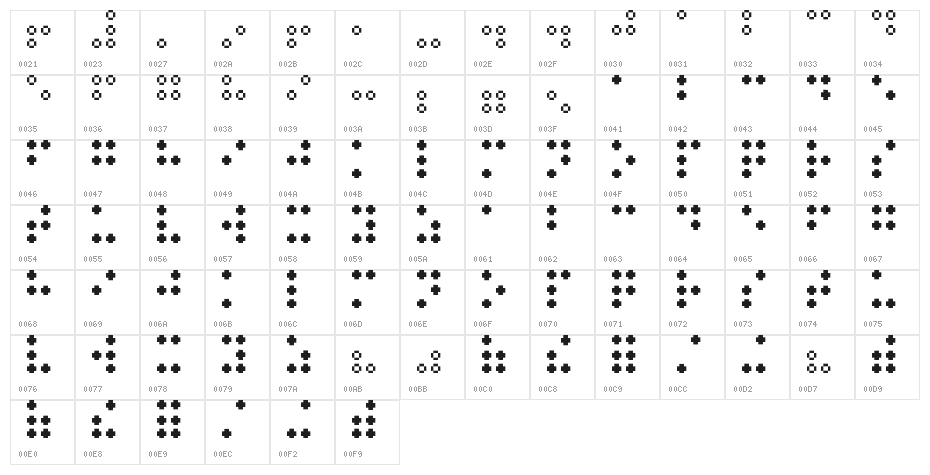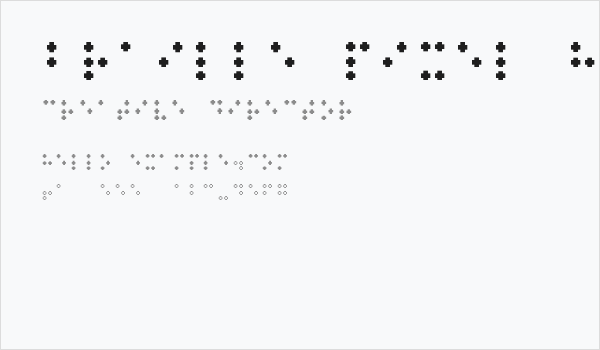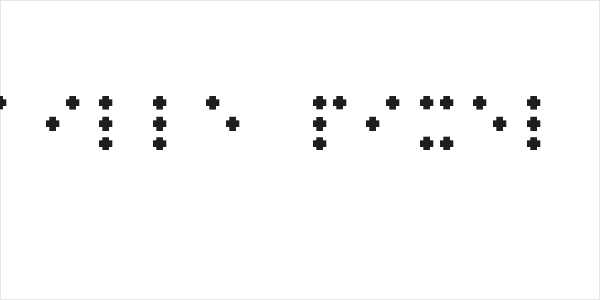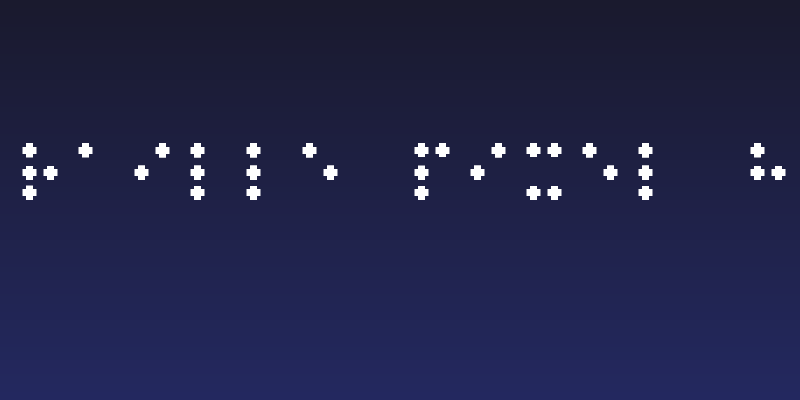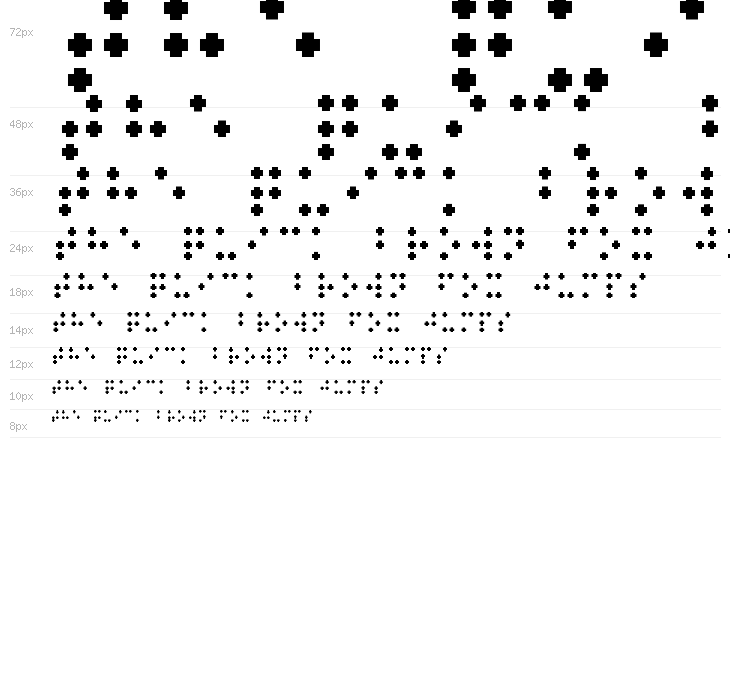
Braille pixel hc Font
This font is a creative representation of the Braille writing system, designed with a pixelated style. Each character is formed using a grid of dots, mimicking the tactile nature of Braille while maintaining a digital aesthetic. The design is minimalist, focusing on the essential elements of each letter and symbol. The use of high contrast between the dots and the background ensures readability, while the uniform size and spacing of the dots create a cohesive look. This font is ideal for projects that aim to blend traditional Braille with modern digital design, offering a unique visual experience.
Use CaseLogos, Educational materials, Digital art
Proposed ProjectsThis font is perfect for educational materials about Braille, digital art projects, accessible design initiatives, and creative branding that seeks to incorporate Braille elements.